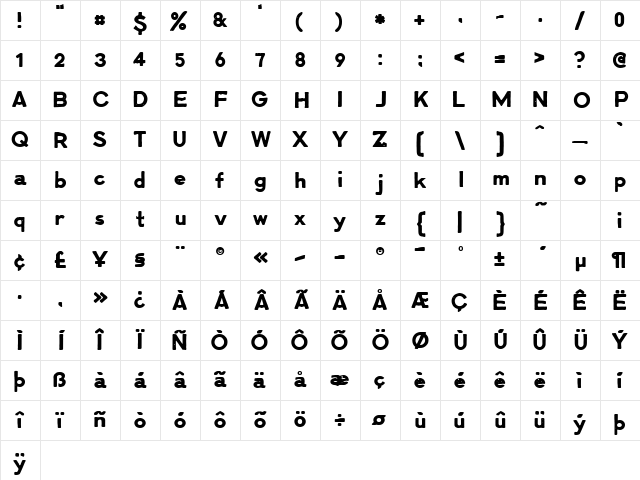
LLCharlotte Regular Free Font
LLCharlotte Regular
Design Context for LLCharlotte
LLCharlotte is a composed and adaptable typeface that performs quietly and consistently across a wide range of design contexts.